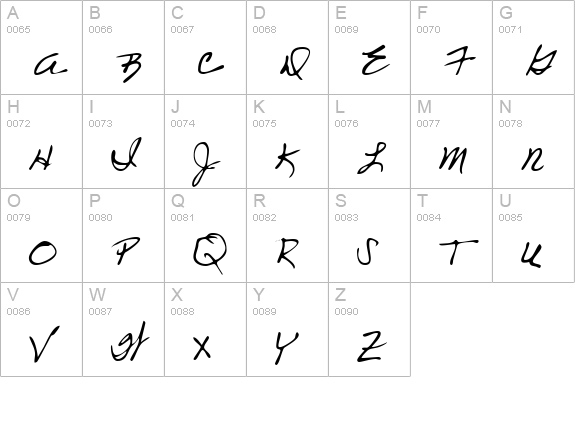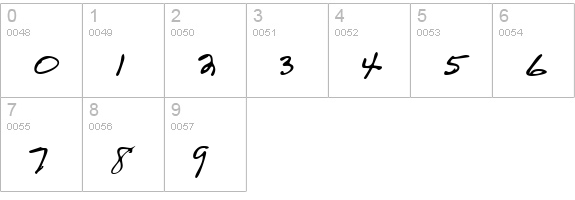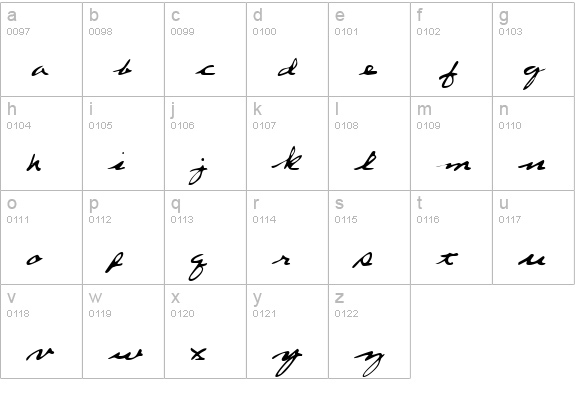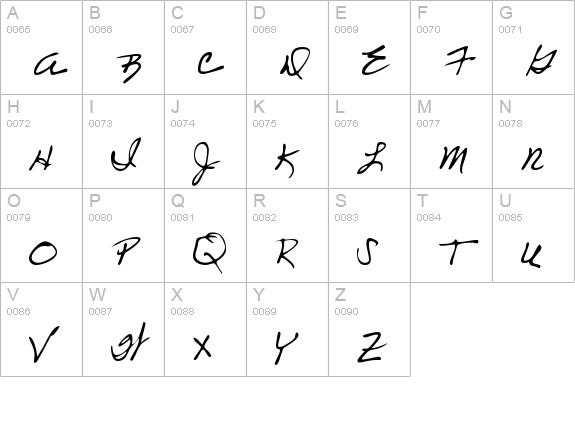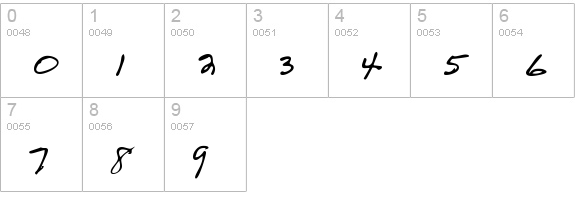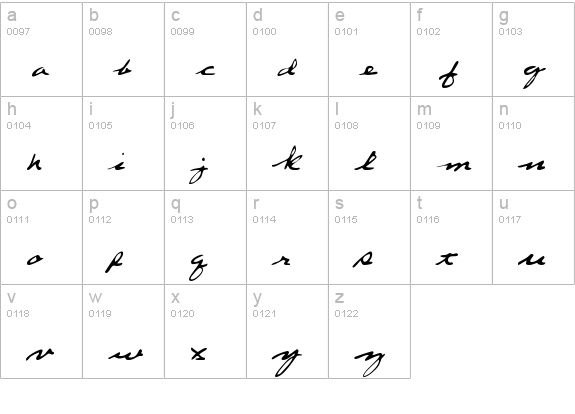
CherylsHand Regular Font Details
CherylsHand Regular is the standard, neutral variant in the CherylsHand typeface family \xE2\x80\x94 well suited to general body text, paragraphs, and standard typographic work.
CherylsHand Regular font is a charming and stylish typeface that exudes a sense of warmth and friendliness. With its delicate hand-drawn strokes and whimsical appeal, this font is perfect for adding a personal touch to any design project. Whether you're creating invitations, greeting cards, or branding materials, CherylsHand Regular will infuse your work with a touch of handmade elegance. The best part? CherylsHand Regular is available for free download at FontsMarket.com. This means you can easily access this beautiful font and use it in your projects without any cost. Don't miss out on this opportunity to enhance your designs with the unique charm of CherylsHand Regular font. Download it today and let your creativity shine!